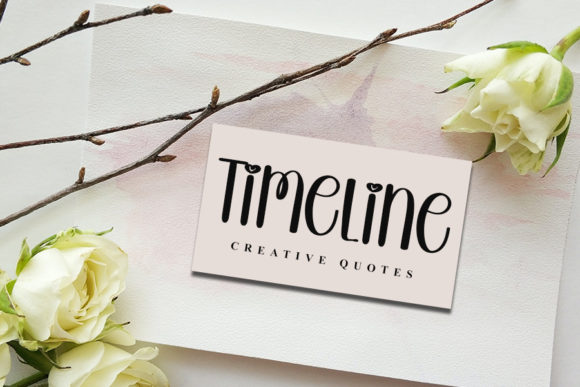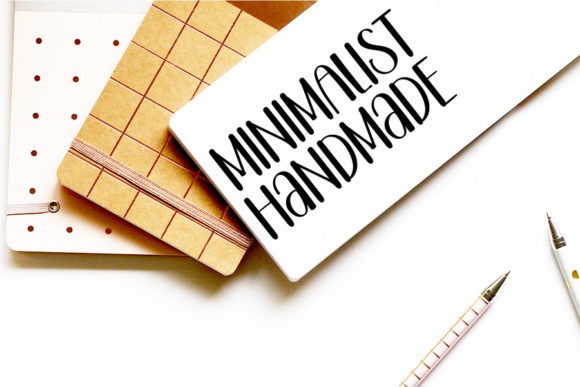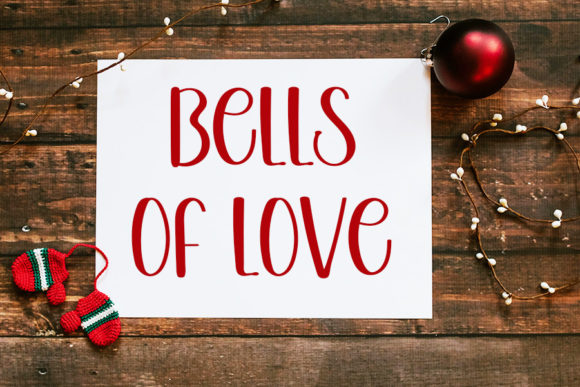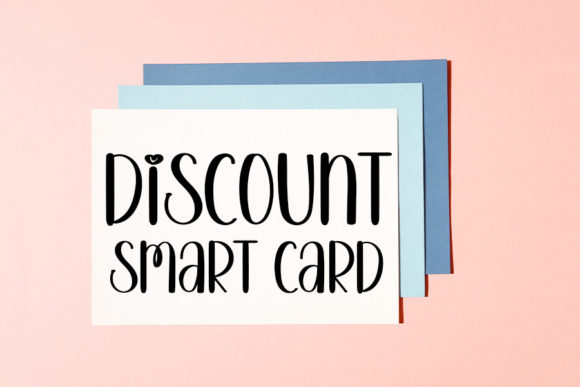
About Winter Christmas Font
Winter Christmas is a ravishing handwritten font, masterfully designed to become a true favorite. It maintains its classy calligraphic influences while feeling contemporary and fresh. Fall in love with it, and bring your projects to the highest levels!